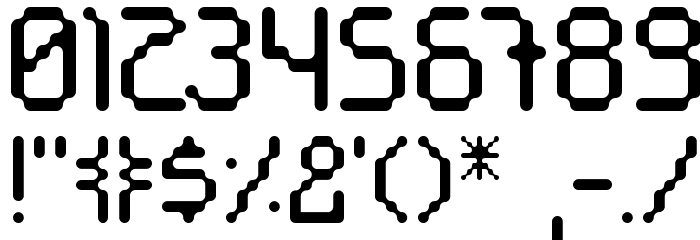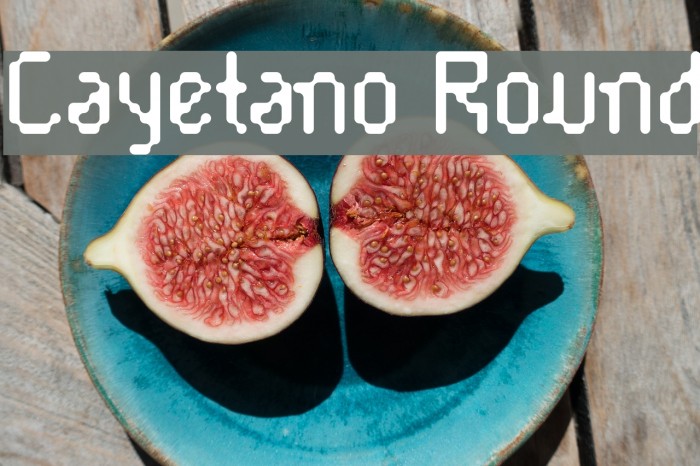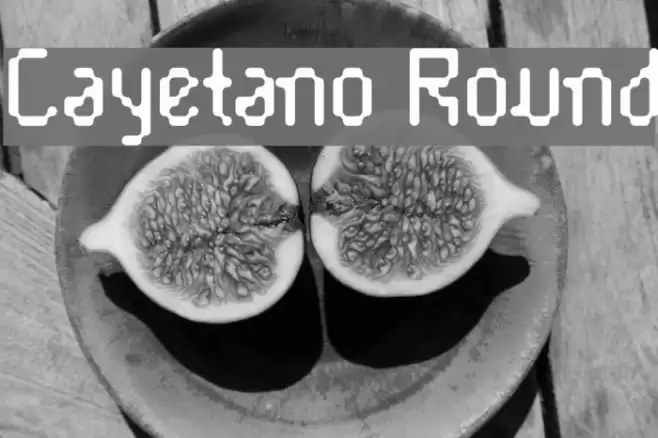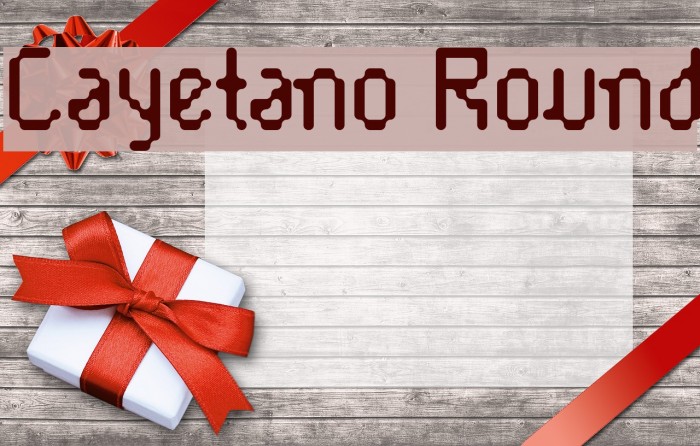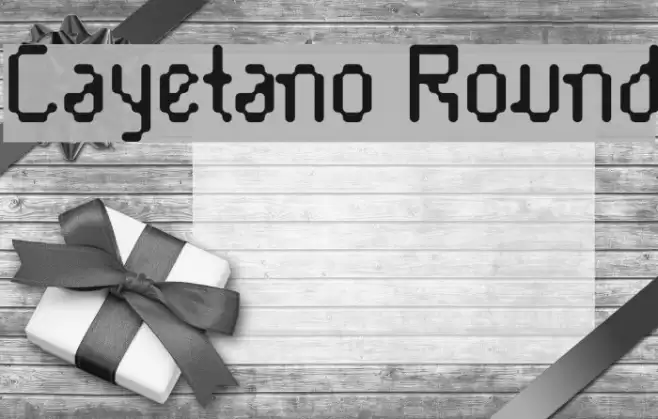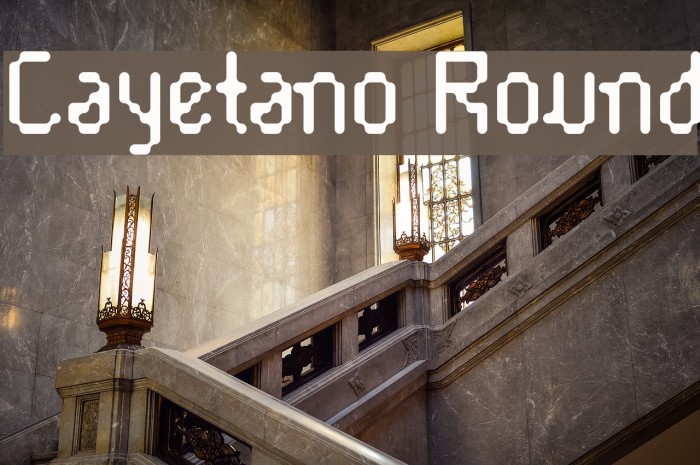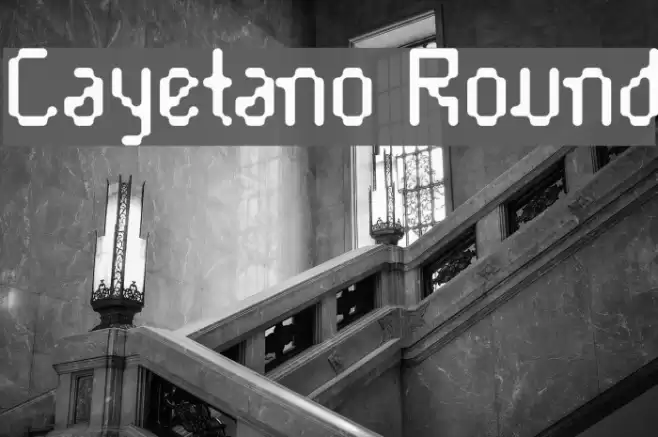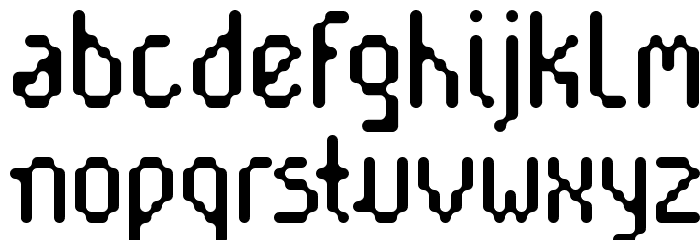
Cayetano Round Font
Cayetano Round Description
This font features a unique, rounded geometric design with a playful and modern aesthetic. The characters are constructed with bold, uniform strokes that form a consistent and cohesive look. Each letter and number has a distinct, blocky appearance with rounded corners, giving it a friendly and approachable feel. The font maintains a consistent weight throughout, ensuring readability while adding a touch of whimsy. The special characters are designed to match the overall style, making it versatile for various applications.
| Proposed Projects | Ideal for children's books, playful branding, modern posters, and digital media projects. |